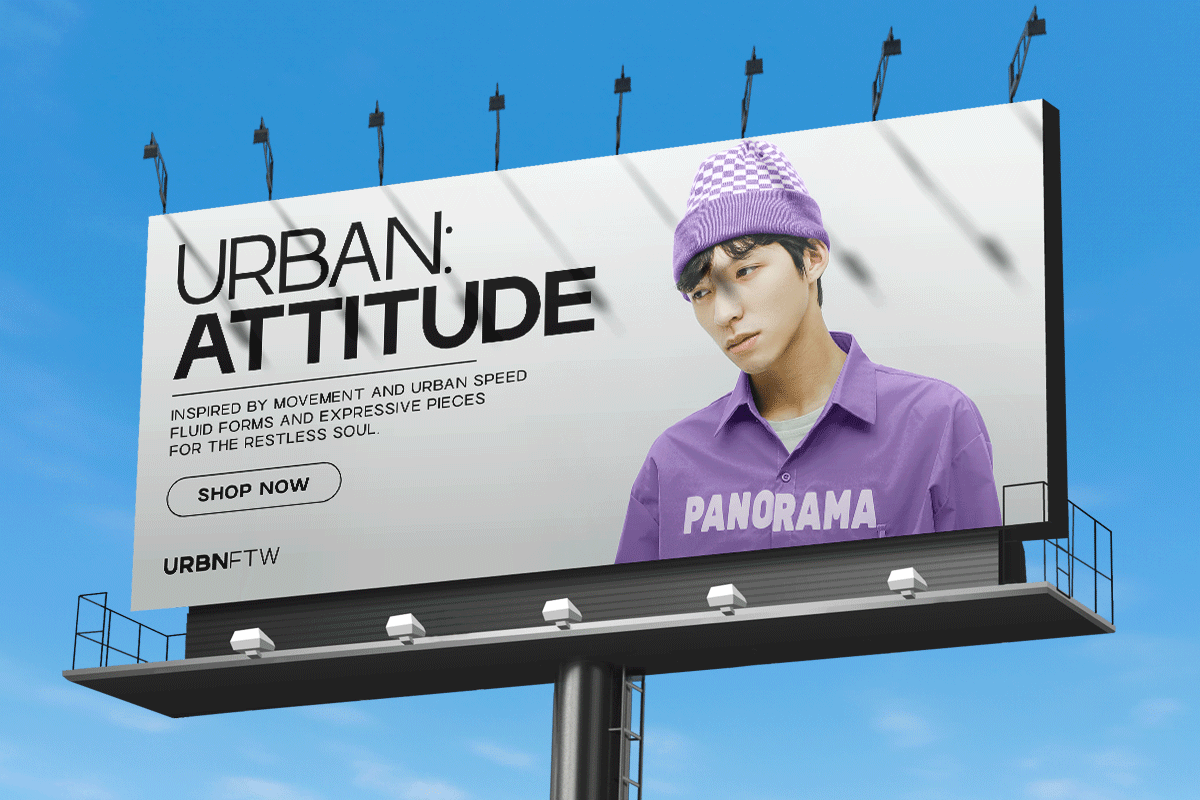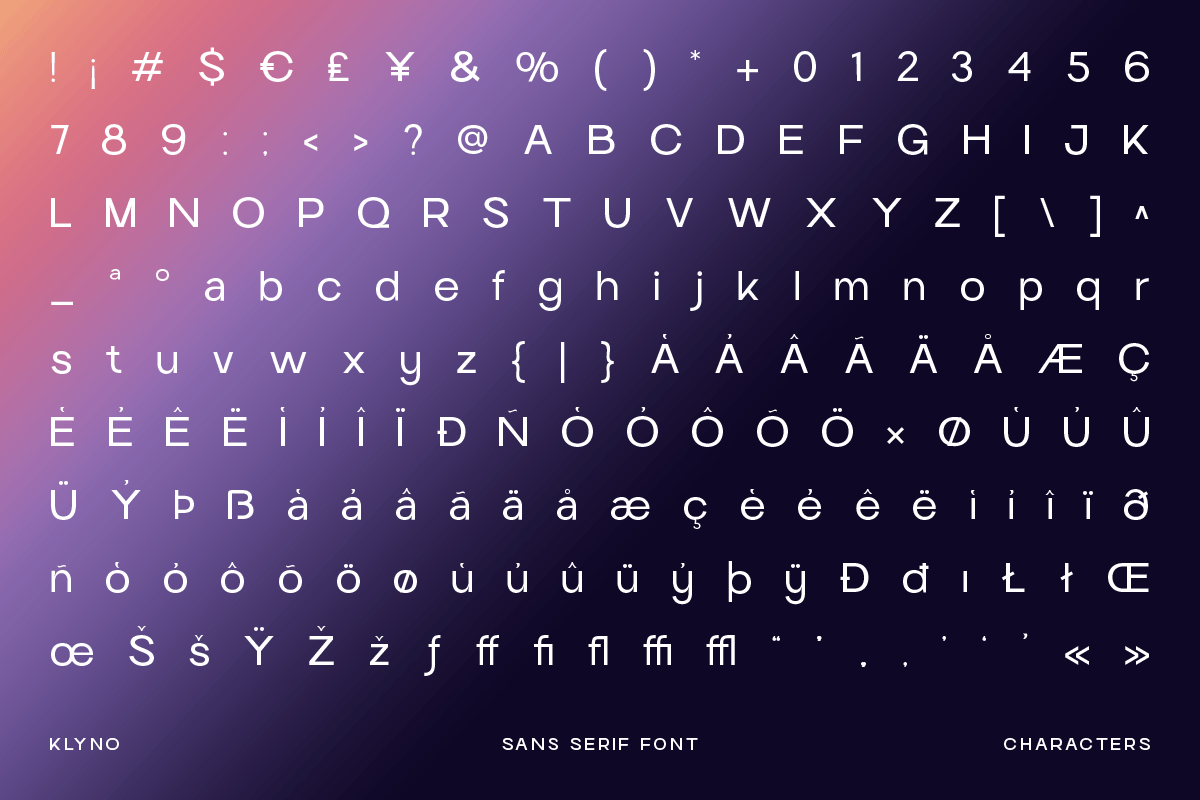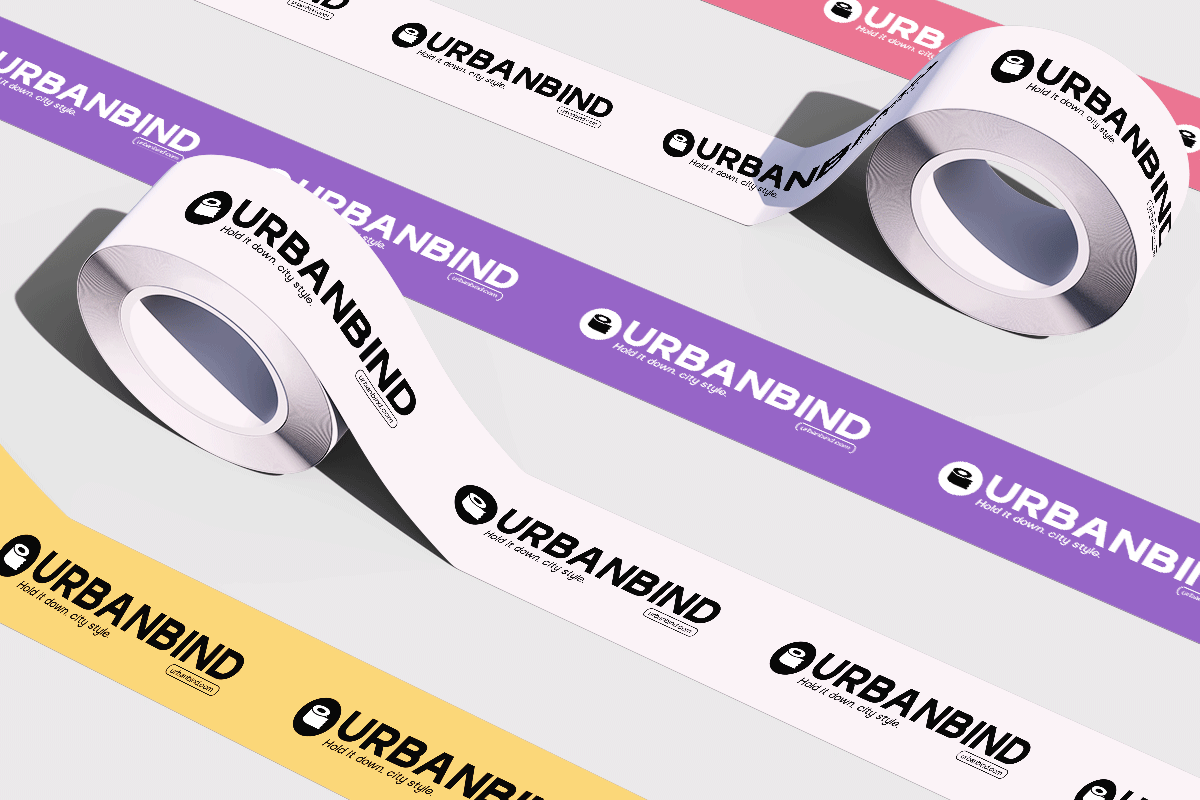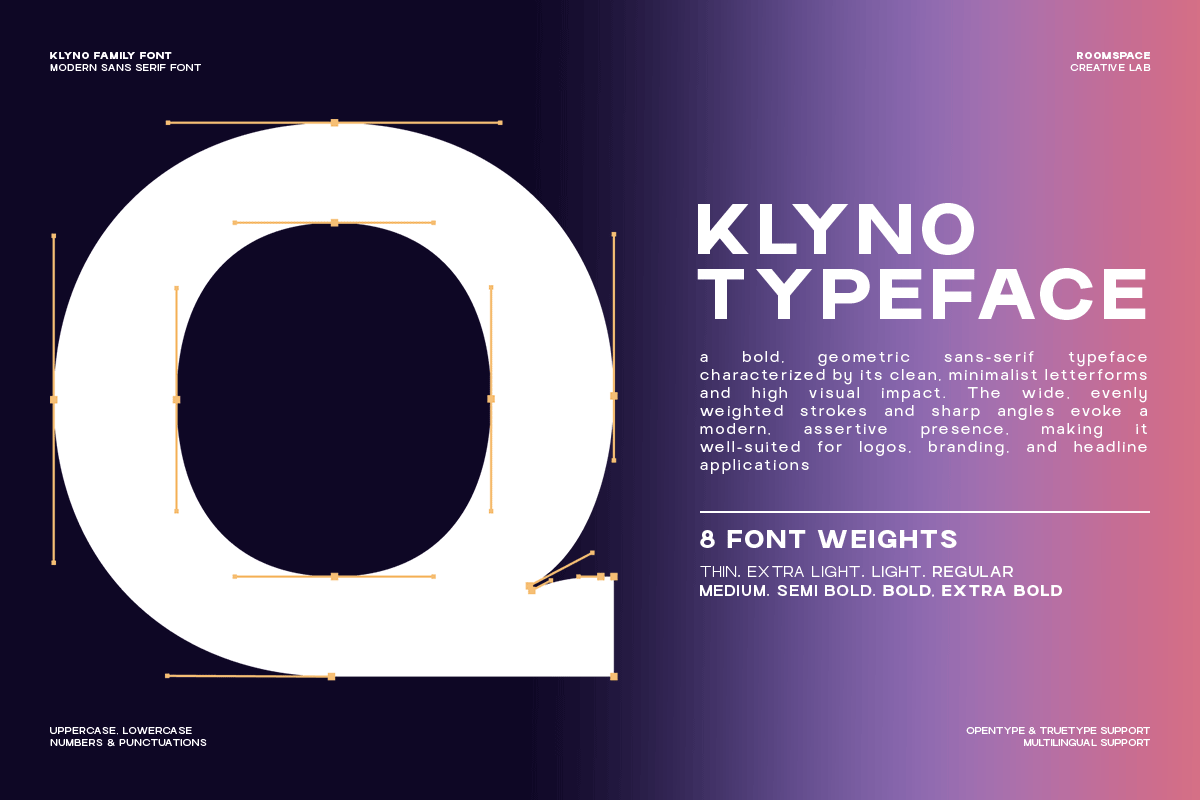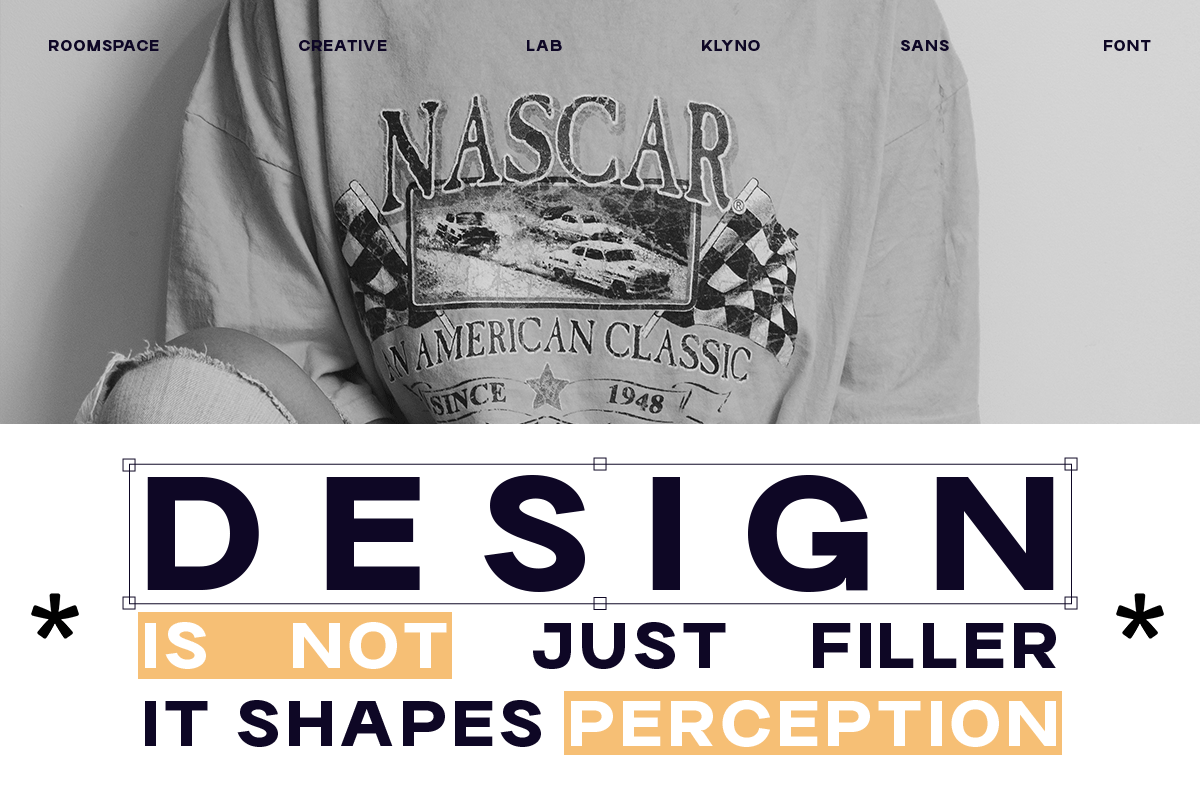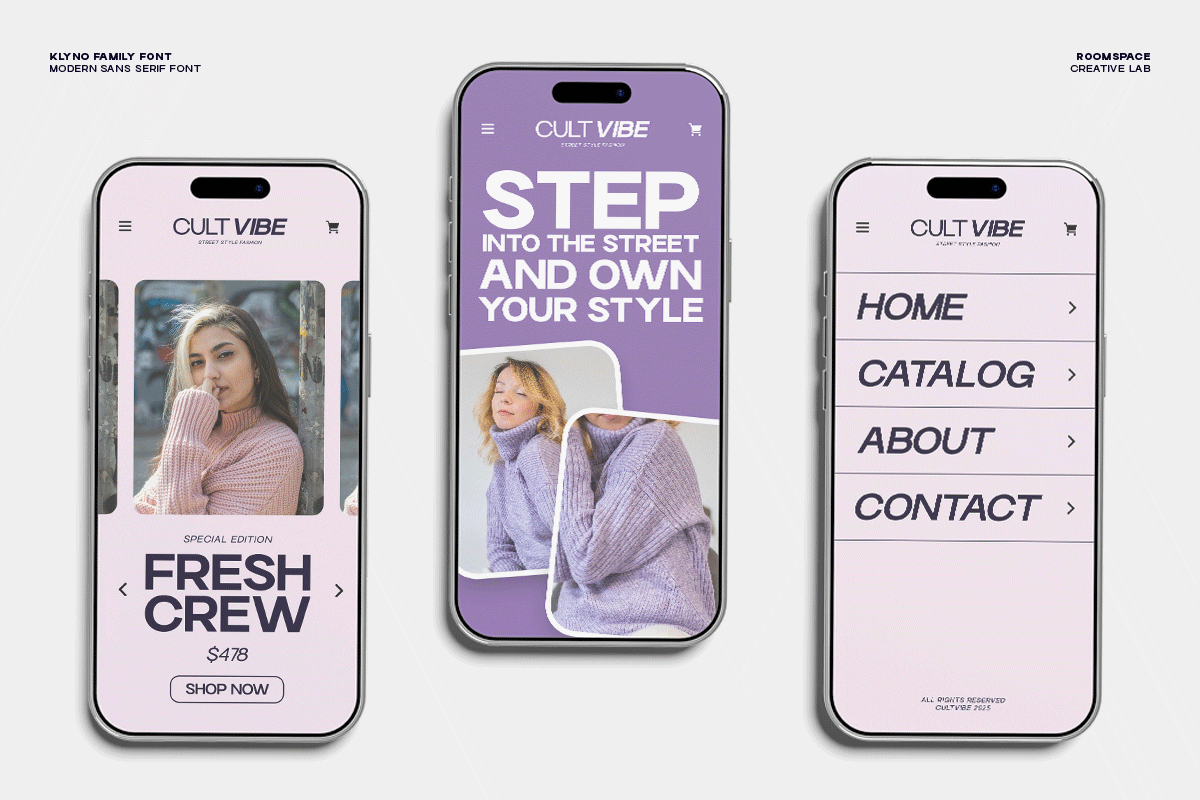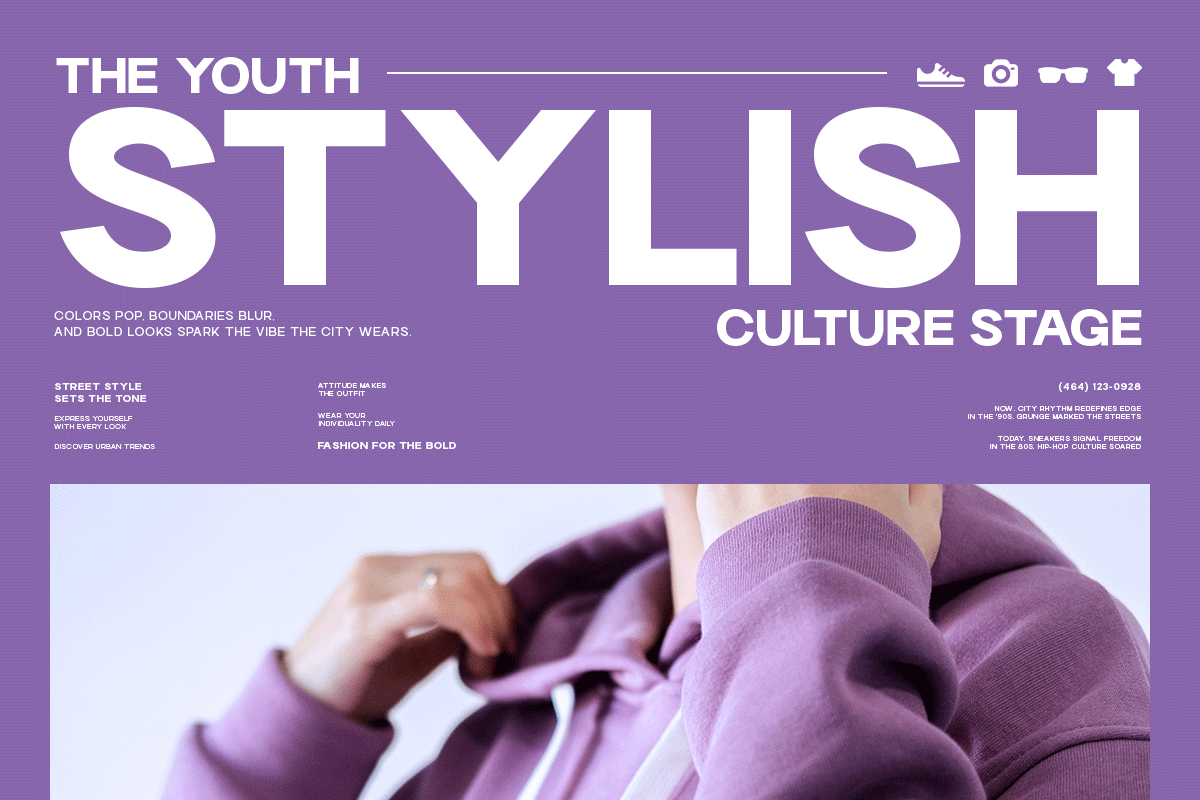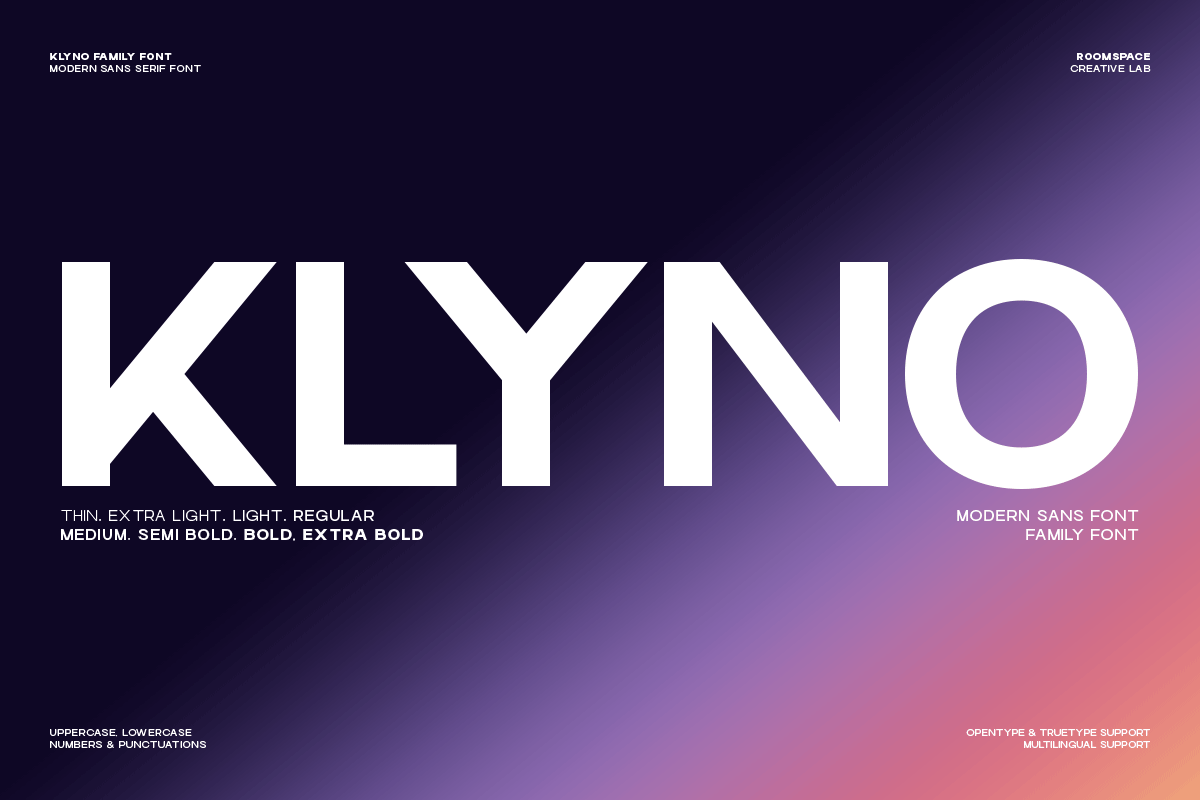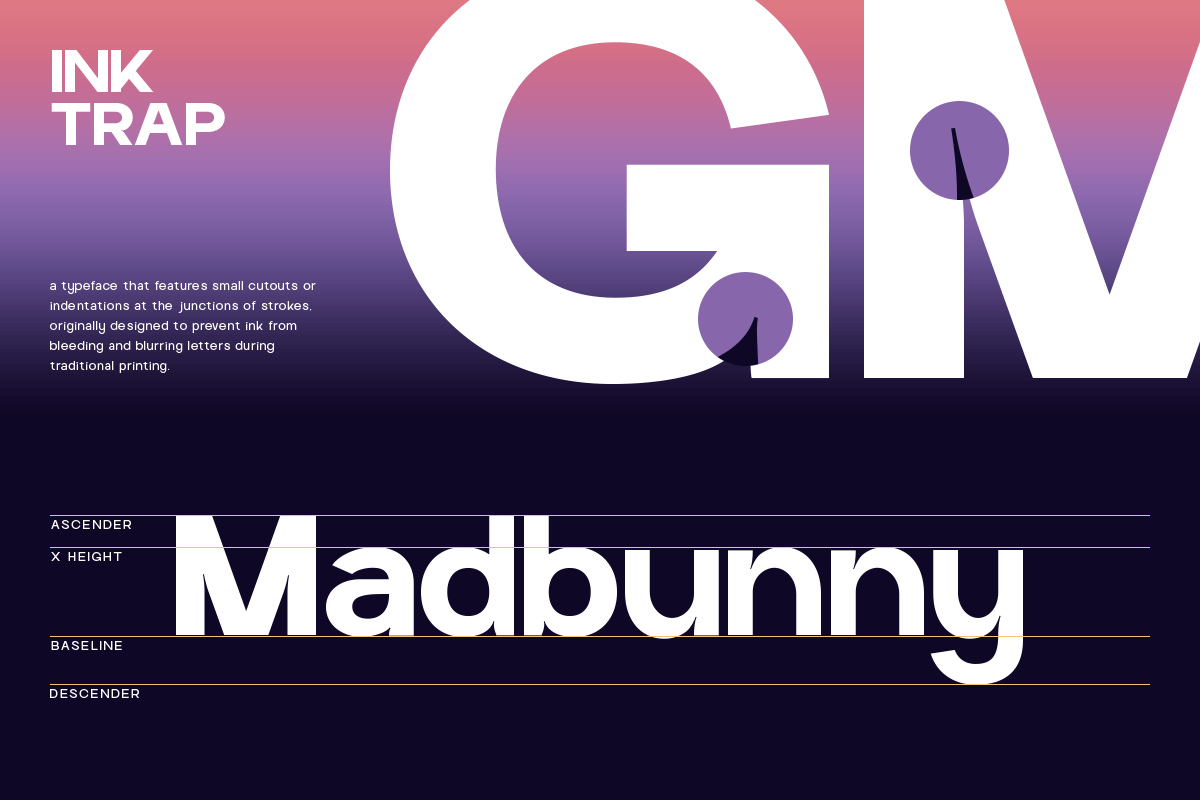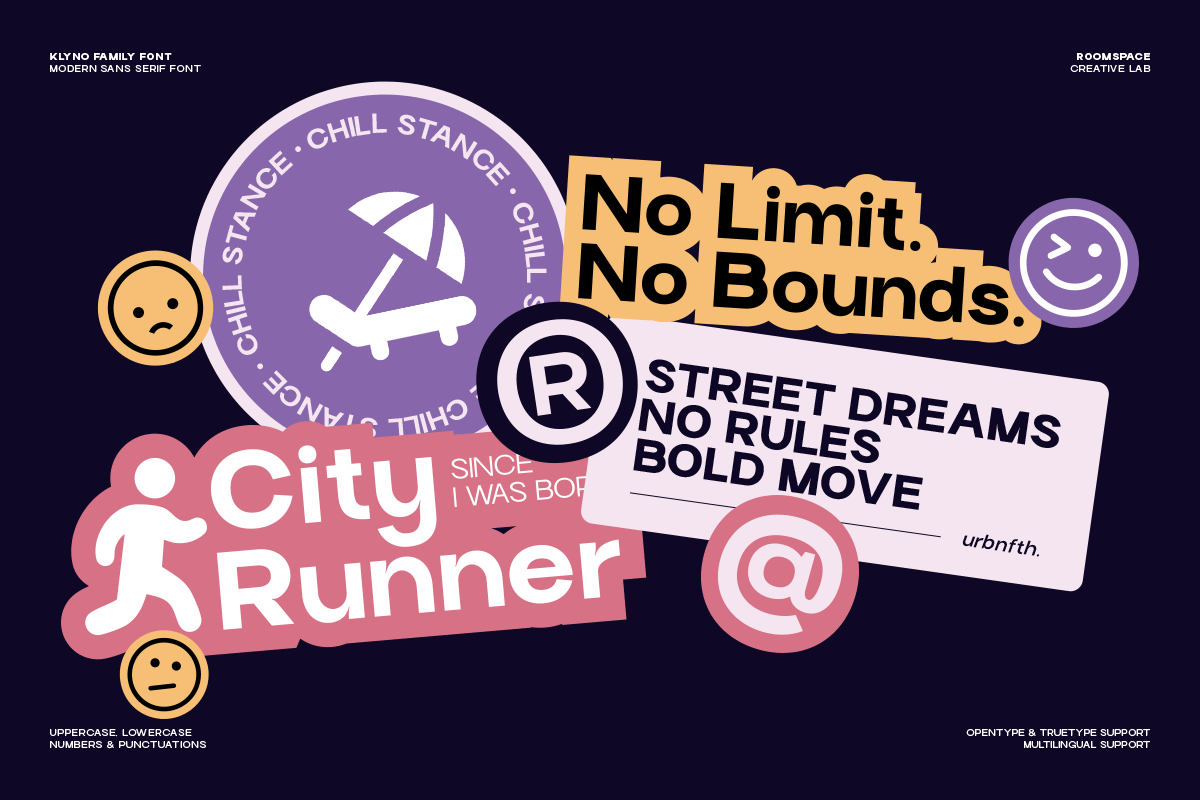
Klyno – A Modern Geometric Font Sans
Klyno is bold, structured, and unmistakably modern. A sans-serif with geometric confidence crafted for designers who want clarity with attitude. The vibe is editorial-tech, clean, and future-forward. No drama, no fluff just sharp typographic presence. Klyno is a modern geometric sans font family built for clarity, structure, and strong visual identity. Featuring 8 weights from Thin to Extra Bold, Klyno delivers a perfect balance of minimal aesthetics and powerful readability. Its clean geometry makes it ideal for branding systems, editorial layouts, UI/UX interfaces, and high-impact digital content. Features: - 8 Font Family (Thin–Extra Bold and Include Italic) - Modern geometric structure - Uppercase & lowercase - Multilingual support - OTF, TTF, WOFF formats - Precise kerning Perfect For: Branding, logos, editorial design, UI/UX, posters, corporate identity, digital products, and tech design.